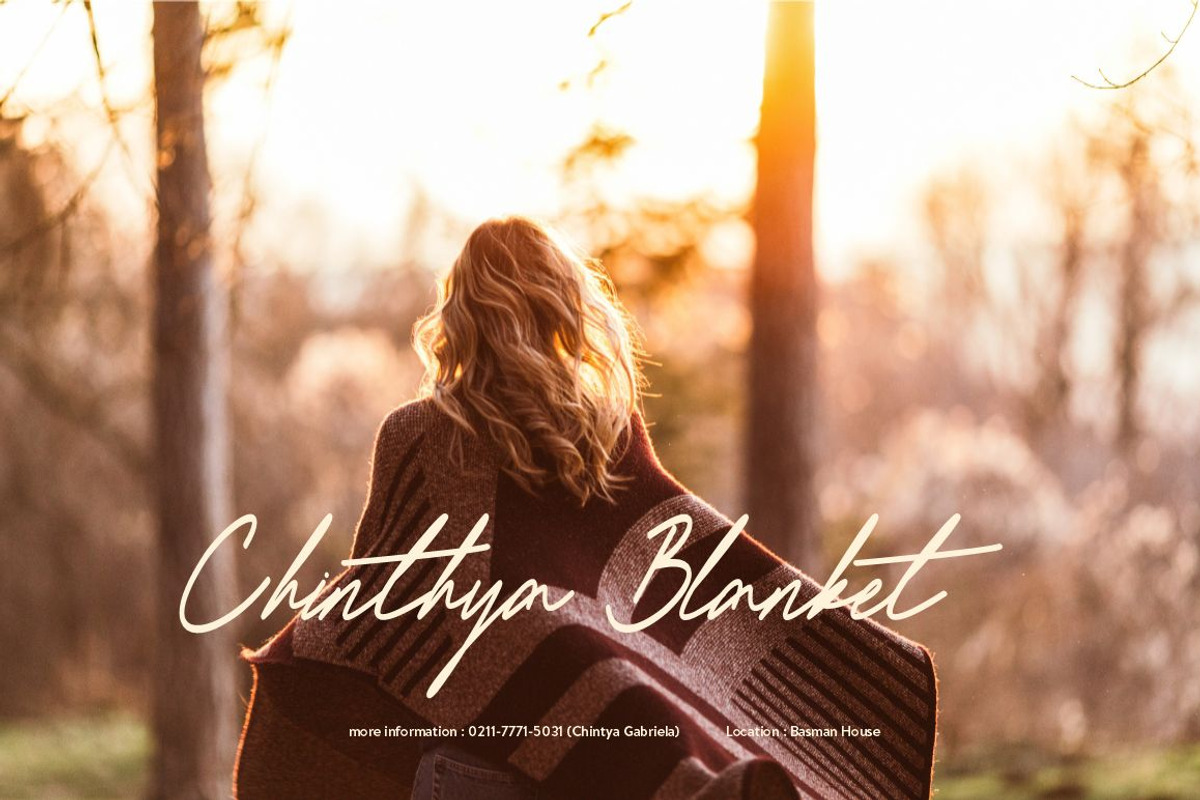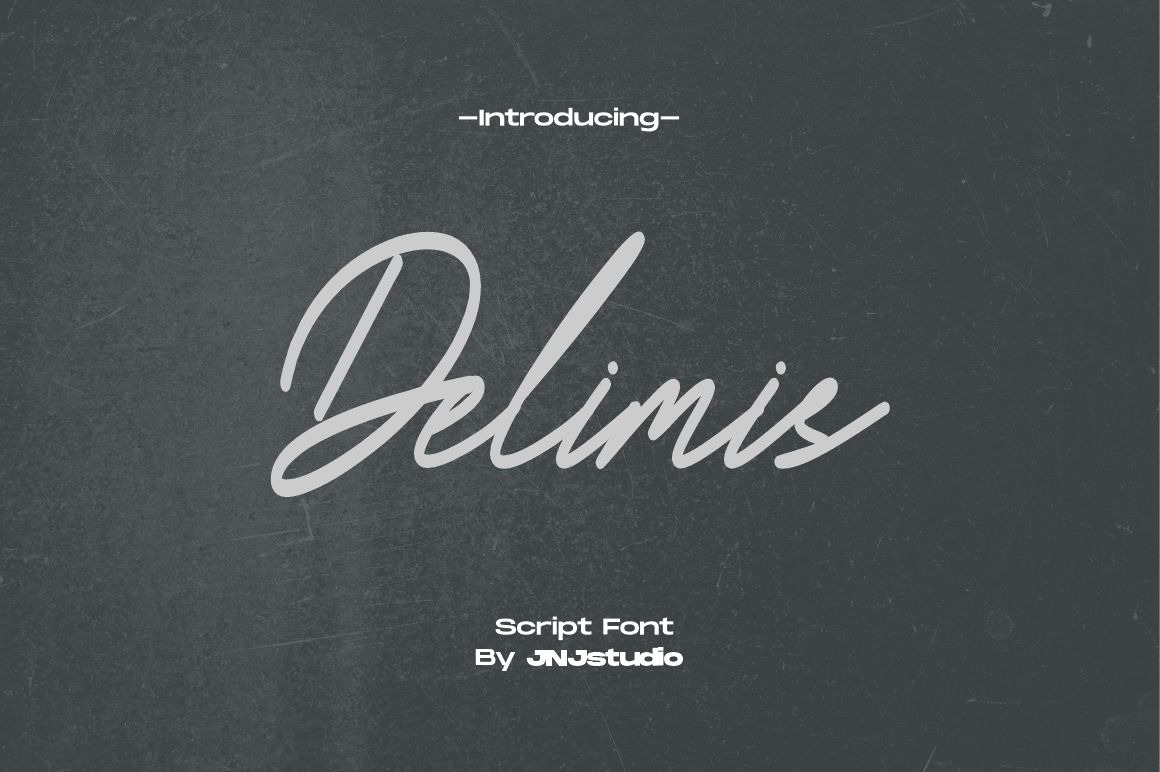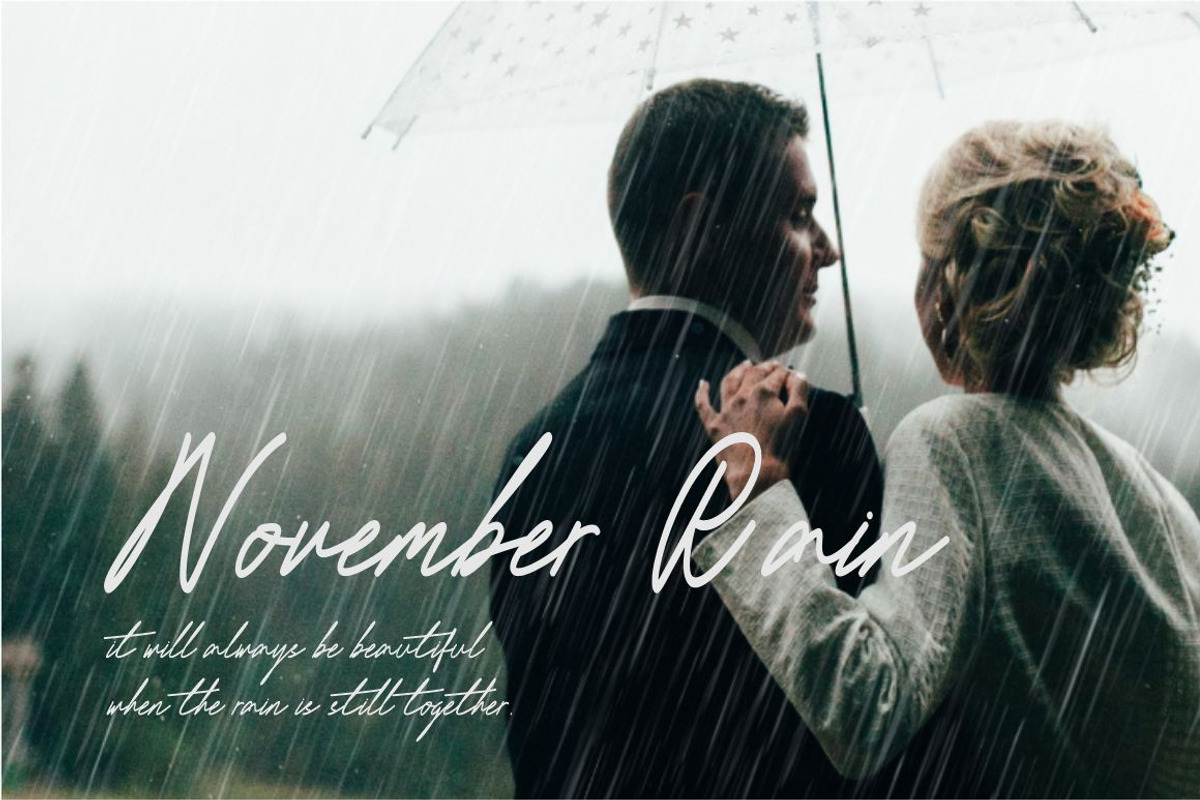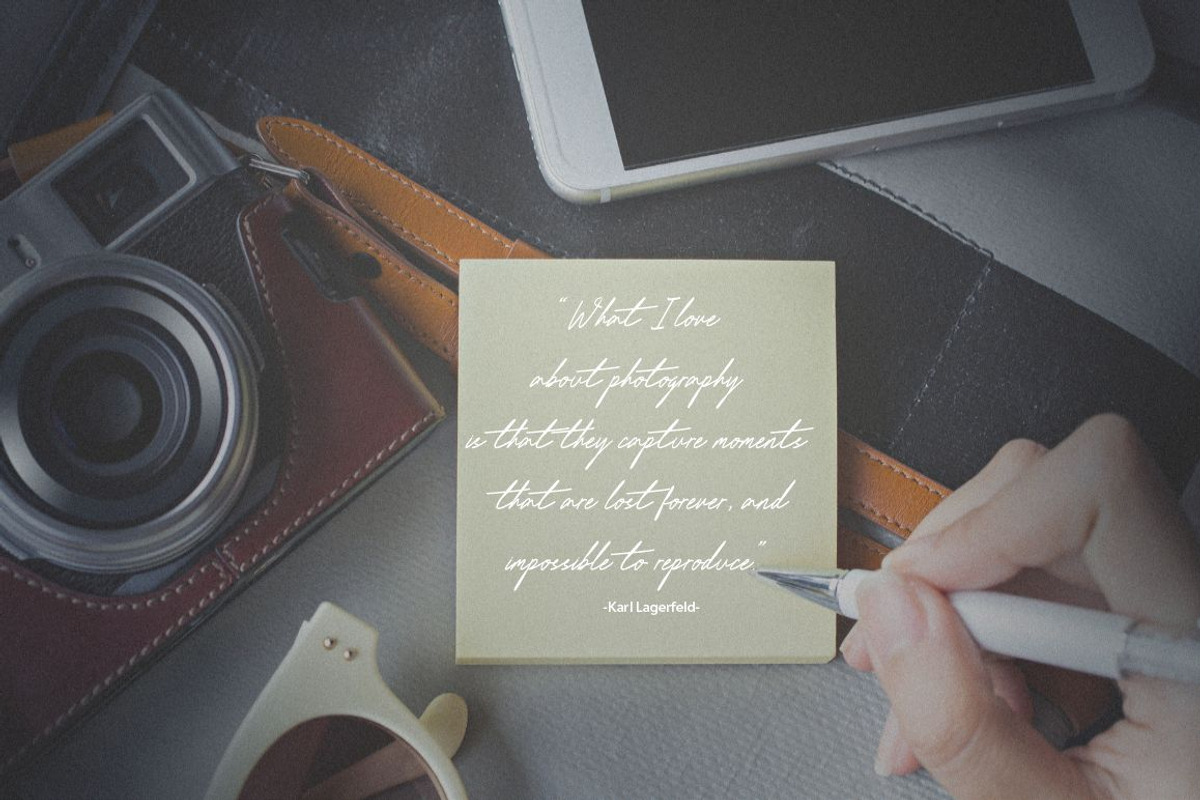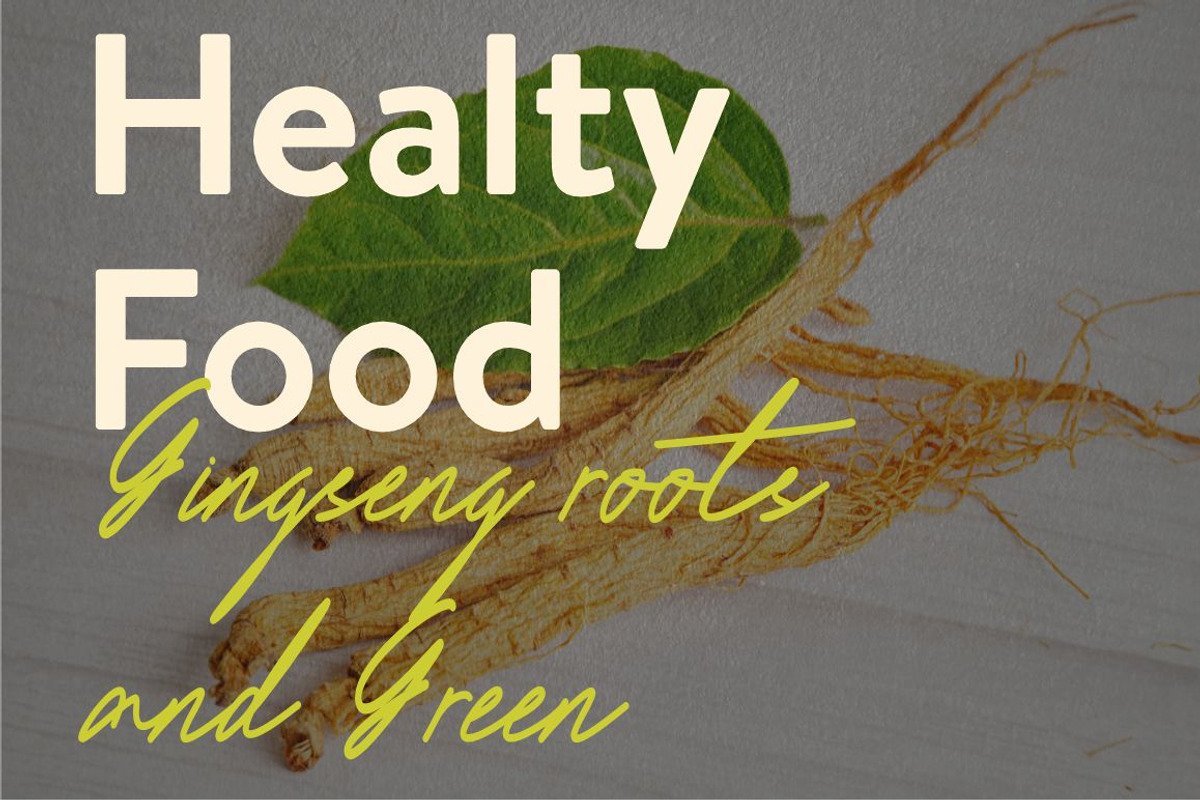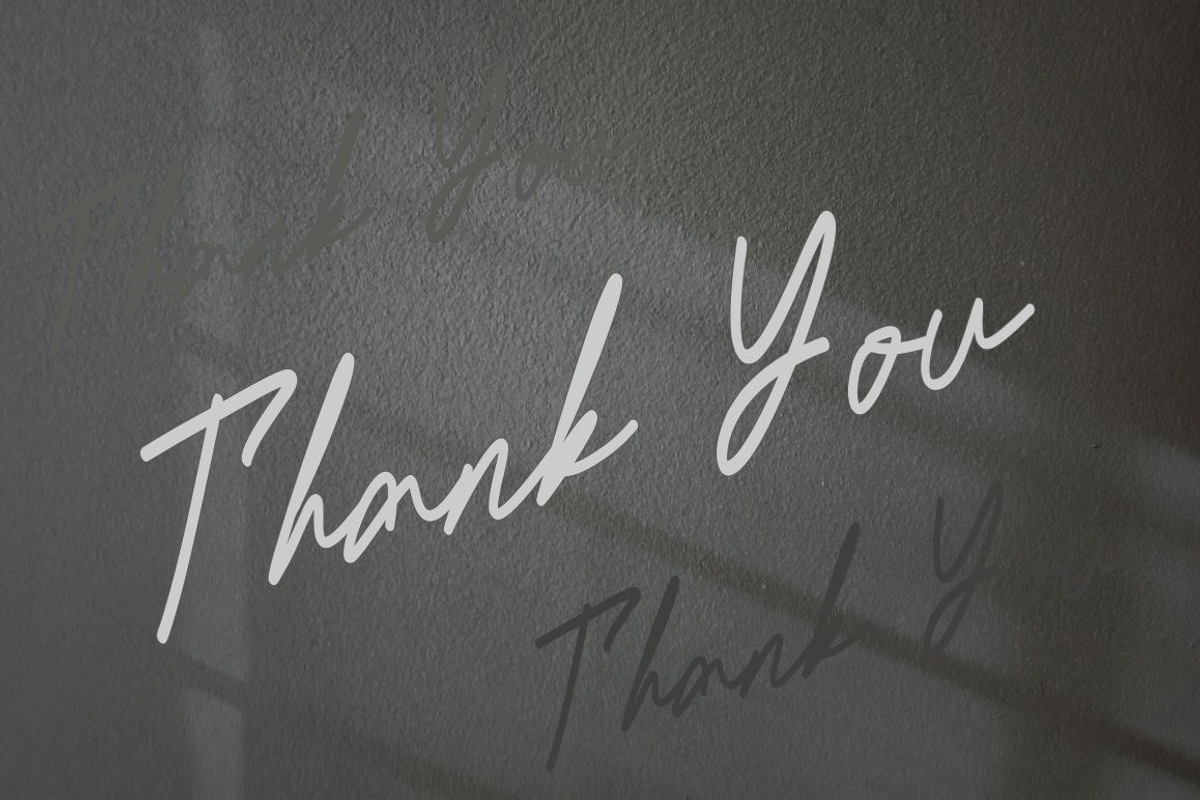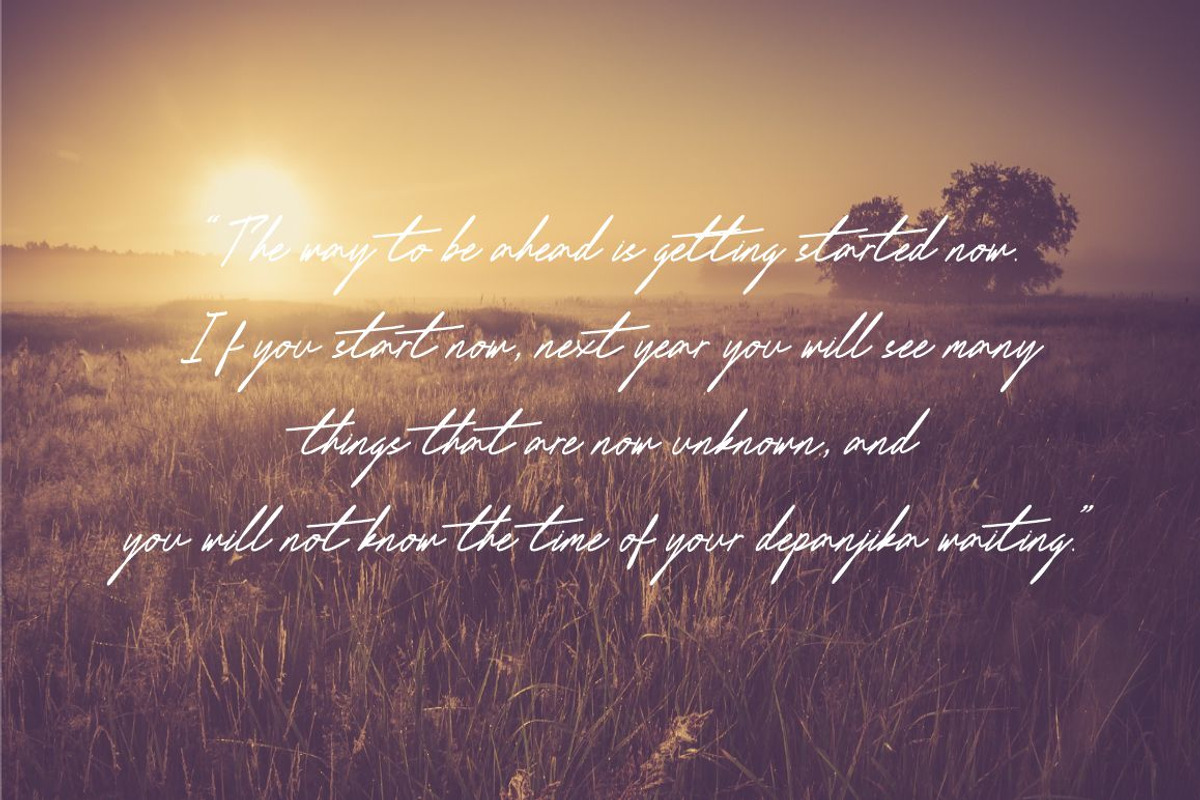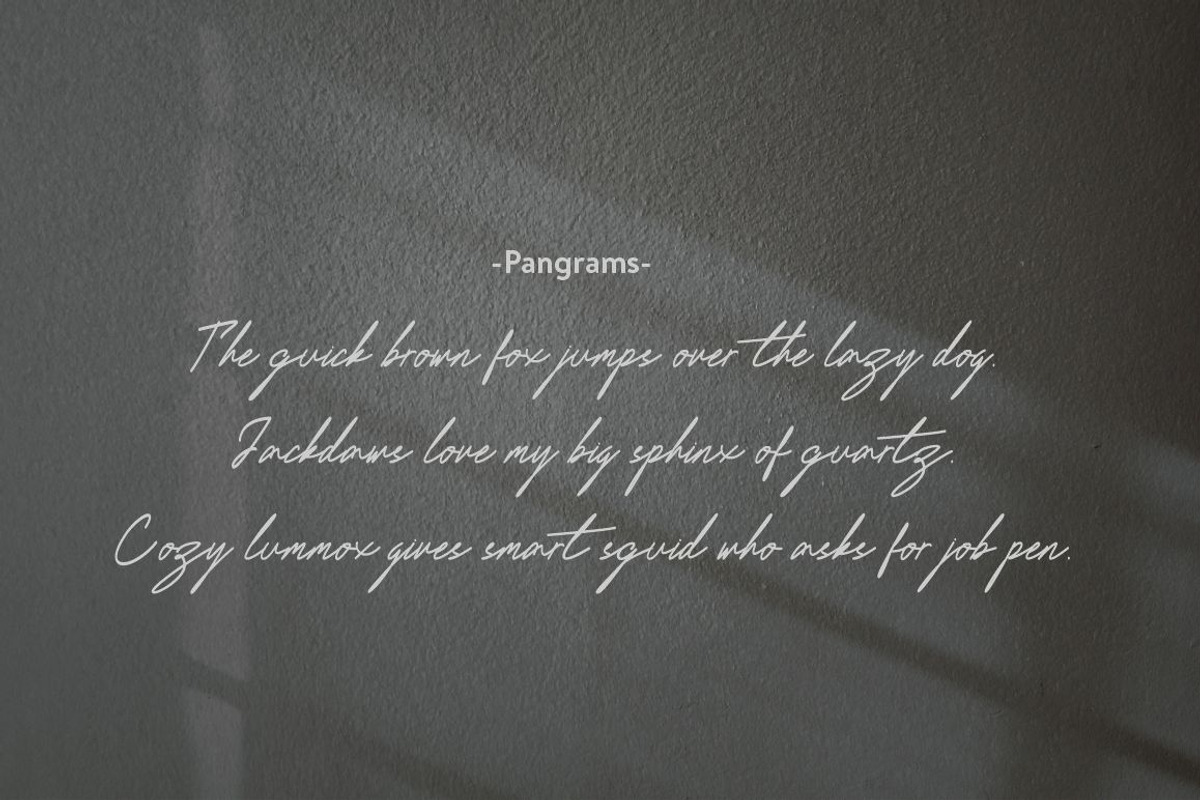
Delimis Script Font
Introducing "Delimis" is a stylish handwritten signature font that exudes elegance and sophistication. Its fluid strokes and delicate curves mimic the natural flow of handwriting, making it perfect for personal branding, wedding invitations, and luxury packaging. The letters are slightly slanted, adding a graceful and effortless feel, while the varying line thickness gives it a realistic and organic touch. "Delimis" strikes a balance between modern chic and classic charm, making it versatile for both formal and creative projects. This font captures the essence of a signature, adding a personal and authentic touch to any design.